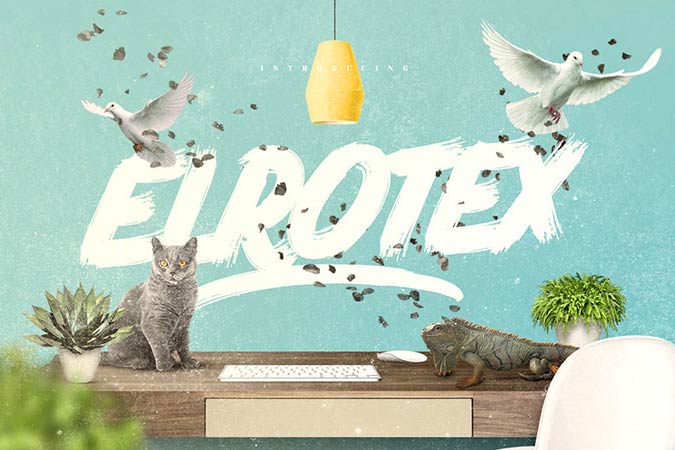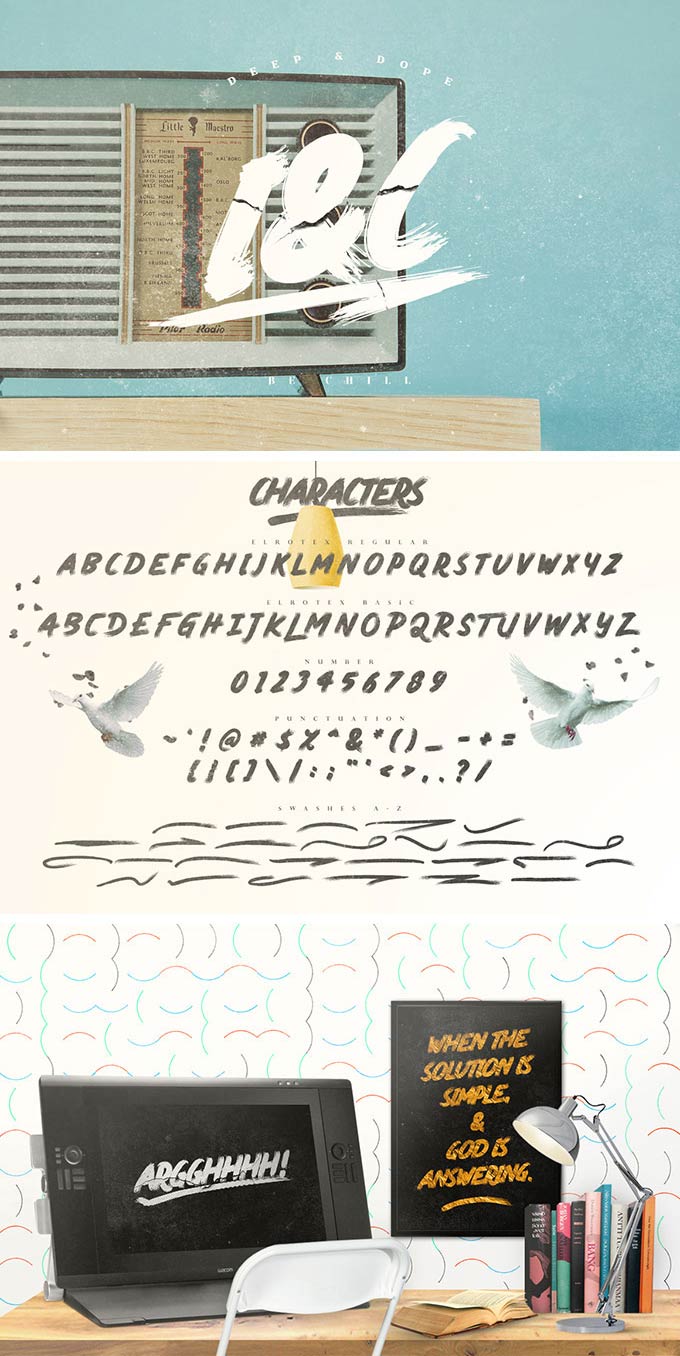
Elrotex is an expressive brush font that you can download for free. I like the way the font slants and also maintaining the dirty strokes of a thick brush. Elrotex comes with two font files: one with the letters and one with nifty swashes to be used together with the former.